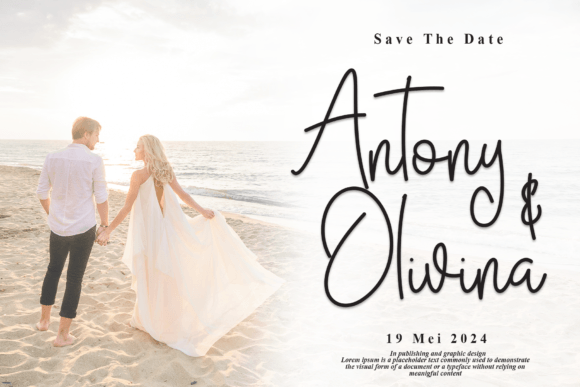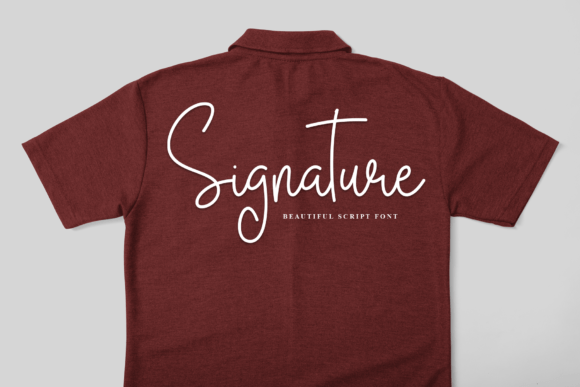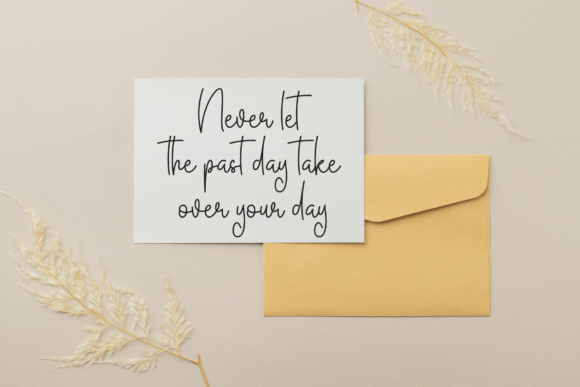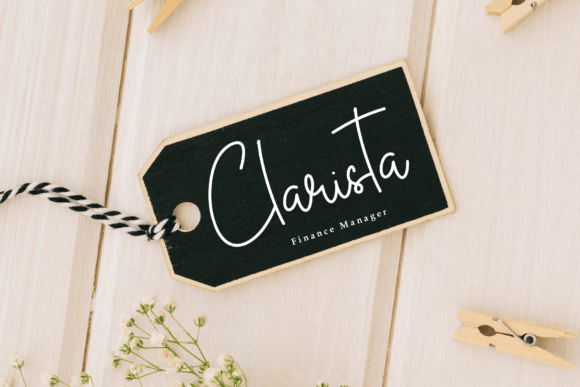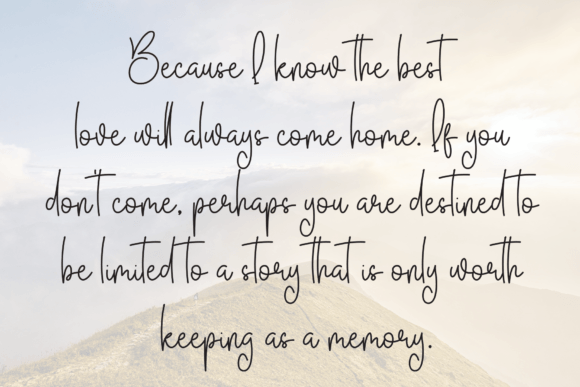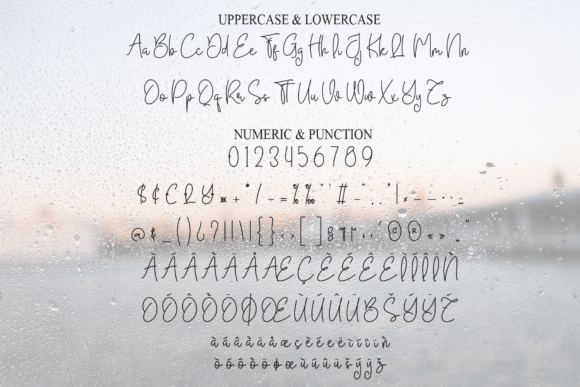
Introduction to Rainy Morning Font
There’s something magical about stepping out into a rainy morning, the droplets on the windowpane glistening like tiny diamonds. It’s the perfect moment to spark creativity, and for designers, it’s a chance to unleash their imagination with the right design resource. That’s where the Rainy Morning Font comes in – a modern and charming handwritten font that adds a touch of elegance and personality to any project.
Whether you’re working on a free download for a client or creating a high-quality design for a personal branding project, the Rainy Morning Font is a valuable addition to your toolkit. Its sophisticated character and refined strokes make it perfect for upscale invitations, editorial designs, and more. With its transparent background, you can easily layer it with other design elements to create a unique visual identity.
As a design resource, the Rainy Morning Font offers a level of versatility that’s hard to find in other fonts. From creative projects to everyday communication, it’s a reliable choice for designers who want to add a touch of warmth and sophistication to their work.
Key Features of Rainy Morning Font
- Unique characteristics: Hand-drawn style with subtle raindrop and cloud elements, adding a touch of whimsy to designs.
Honest Review: Rainy Morning Font
As a designer, I’m always on the lookout for high-quality design resources to elevate my creative projects. The Rainy Morning Font is one such resource that caught my attention. Here’s my honest review.
- The font’s unique, cursive design makes it perfect for titles and headings in a variety of creative projects.
- The font’s style may not be suitable for all types of projects, such as technical documentation or news articles.
Overall, the Rainy Morning Font is a great addition to any designer’s toolkit. While it may have some limitations, its unique design and high-quality construction make it a valuable resource for creative projects. I’d definitely recommend it to fellow designers looking for a versatile and stylish font.
Tips for Getting the Most Out of Rainy Morning Font
For optimal results, use Rainy Morning Font in a design project that requires a creative and whimsical touch. This font is perfect for titles, headings, or body text in projects like wedding invitations, children’s book covers, or social media graphics.